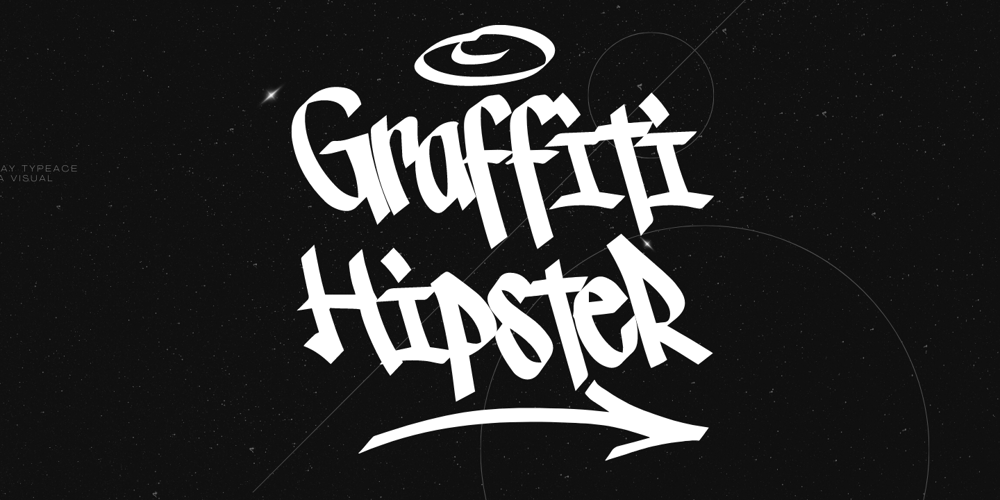
Graffiti Hipster Font Family was designed by Sigit Dwipa and published by Nirmana Visual. Graffiti Hipster contains 2 styles and family package options. Introducing our newest graffiti-themed font collection, with realistic flat marker 2 Style : Regular & Swash perfect for adding an edgy and urban touch to your designs. Our collection features bold and expressive typefaces that are inspired by street art and graffiti culture.Our graffiti fonts are designed to capture the energy and vibrancy of urban environments, with expressive lines and curves that create a sense of movement and fluidity. They are perfect for a range of projects, from advertising and editorial design to branding and packaging.